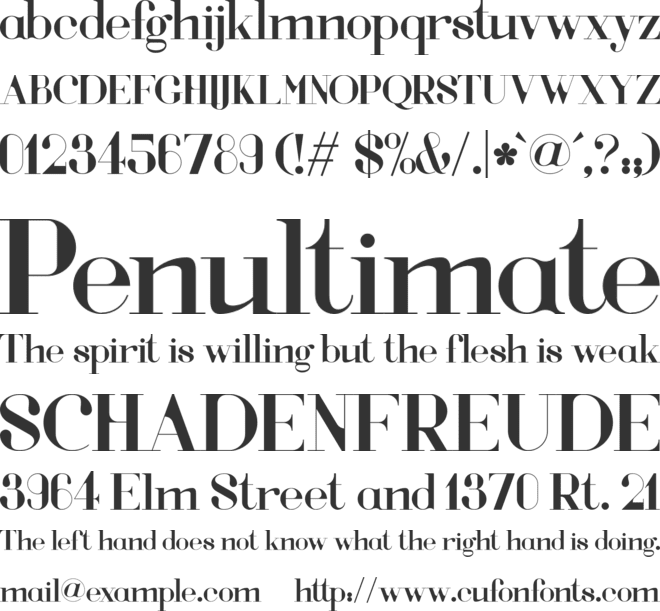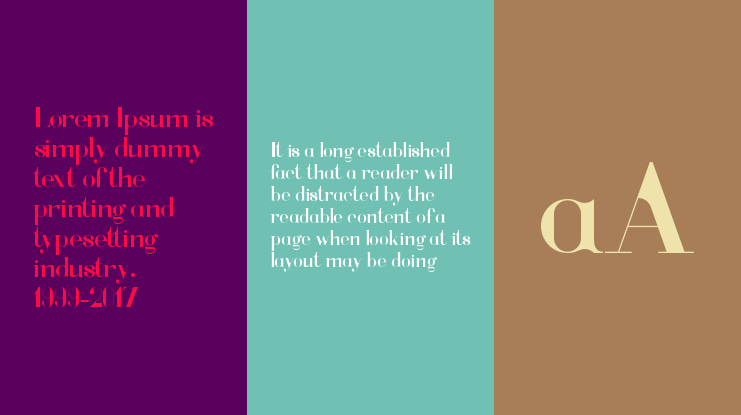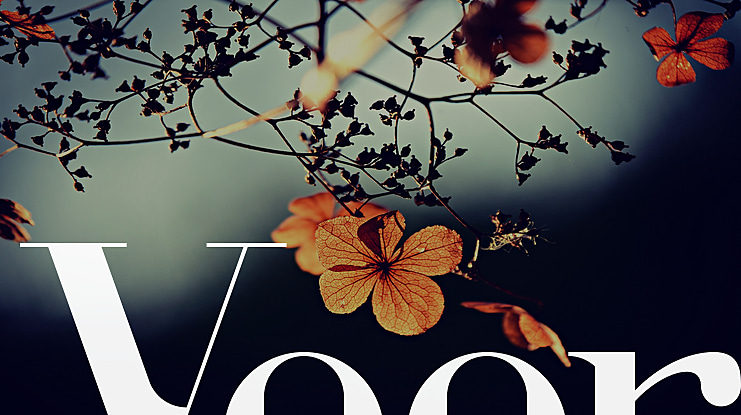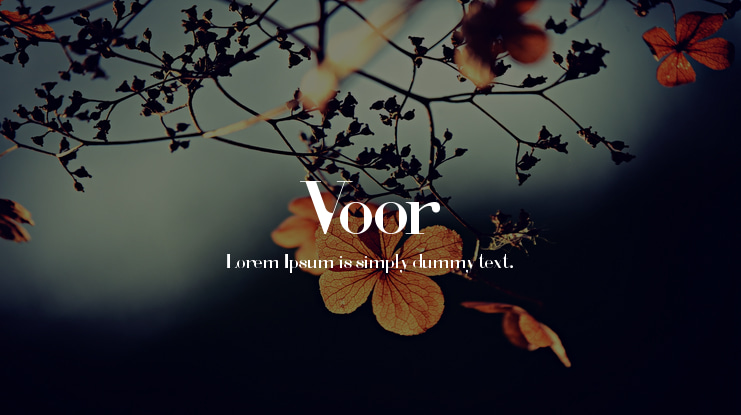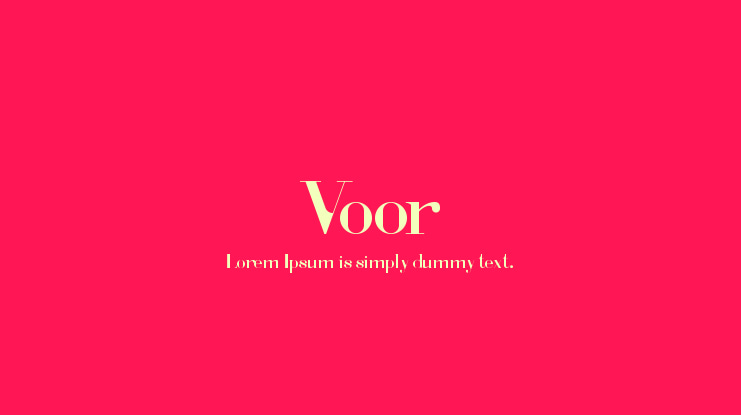
Voor Font
Voor is a beautiful high contrast serif font with it’s unique look. This font looks great for magazine covers, social media, prints, luxury branding and other fashion designs.